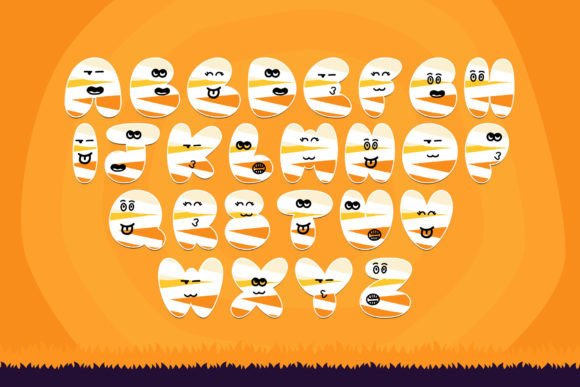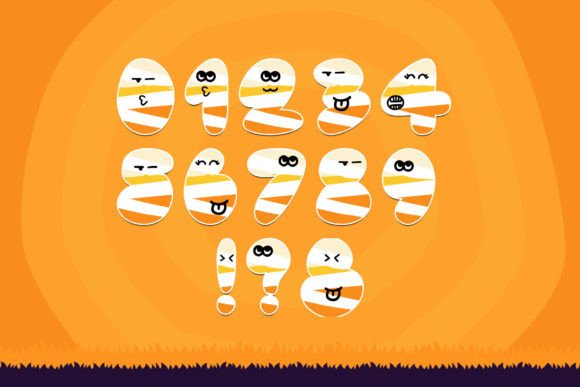
Unwrap the Fun: Exploring the Quirky World of Funny Mummy Font
Are you tired of using the same old boring fonts in your designs? Look no further than the Funny Mummy font, a quirky and playful typeface that’s sure to add a touch of whimsy to your projects. In this article, we’ll dive into the world of Funny Mummy font, exploring its unique characteristics, uses, and benefits for designers and crafters.
The Origins of Funny Mummy Font
The Funny Mummy font is a bold and cartoony typeface that’s designed to evoke a sense of playfulness and fun. Its slightly uneven design gives it a hand-drawn feel, making it perfect for projects that require a personal touch. While its exact origins are unclear, it’s likely that Funny Mummy font was created with the intention of being used in children’s books, games, and other applications where a fun and lighthearted tone is desired.
Characteristics of Funny Mummy Font
So what makes Funny Mummy font so unique? Here are a few of its key characteristics:
- Bold and cartoony: Funny Mummy font is a bold and attention-grabbing typeface that’s perfect for headlines and titles.
- Slightly uneven design: The font’s slightly uneven design gives it a playful and whimsical feel that’s perfect for projects that require a personal touch.
- Playful and fun: The overall feel of Funny Mummy font is playful and fun, making it perfect for projects that require a lighthearted tone.
Uses for Funny Mummy Font
So what can you use Funny Mummy font for? The possibilities are endless, but here are a few ideas to get you started:
- Children’s books: Funny Mummy font is perfect for children’s books, where its playful and fun tone can help bring stories to life.
- Games: The font’s bold and cartoony design makes it perfect for games, where it can be used to create fun and engaging titles and menus.
- Advertising: Funny Mummy font can be used in advertising campaigns to add a touch of whimsy and fun to promotional materials.
- Branding campaigns: The font’s unique and playful design makes it perfect for branding campaigns, where it can be used to create memorable and engaging logos and marketing materials.
So why should designers and crafters consider using Funny Mummy font in their projects? Here are a few benefits:
- Adds a touch of whimsy: Funny Mummy font can add a touch of whimsy and fun to projects, making them more engaging and memorable.
- Perfect for kids’ projects: The font’s playful and fun tone makes it perfect for projects aimed at kids, such as children’s books and games.
- Easy to read: Despite its playful design, Funny Mummy font is easy to read, making it perfect for projects that require a clear and concise message.
- Versatile: Funny Mummy font can be used in a variety of projects, from advertising and branding campaigns to children’s books and games.
Tips for Using Funny Mummy Font
Here are a few tips for using Funny Mummy font in your projects:
- Use it sparingly: While Funny Mummy font is playful and fun, it can be overwhelming if used too much. Use it sparingly to add a touch of whimsy to your projects.
- Pair it with other fonts: Funny Mummy font can be paired with other fonts to create a unique and engaging design. Try pairing it with a clean and simple font for a bold and eye-catching look.
- Experiment with colors: The font’s playful design makes it perfect for experimenting with different colors and textures. Try using it with bright and bold colors to add a touch of fun to your projects.
In conclusion, Funny Mummy font is a quirky and playful typeface that’s perfect for designers and crafters looking to add a touch of whimsy to their projects. Its bold and cartoony design, slightly uneven design, and playful tone make it perfect for children’s books, games, advertising, and branding campaigns. With its versatility, ease of use, and fun tone, Funny Mummy font is sure to become a favorite in your design toolkit.